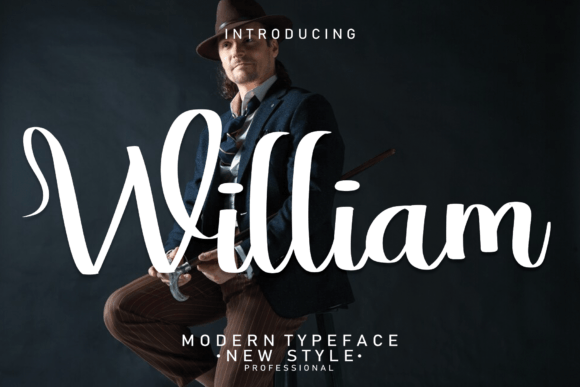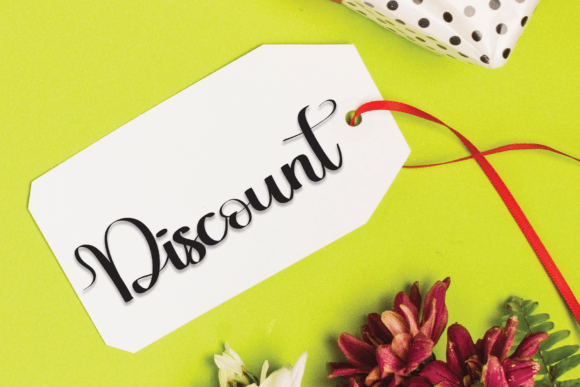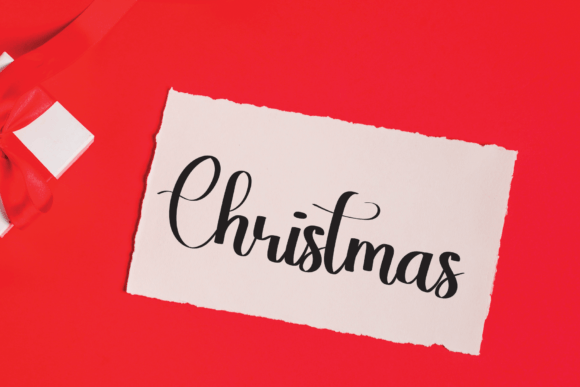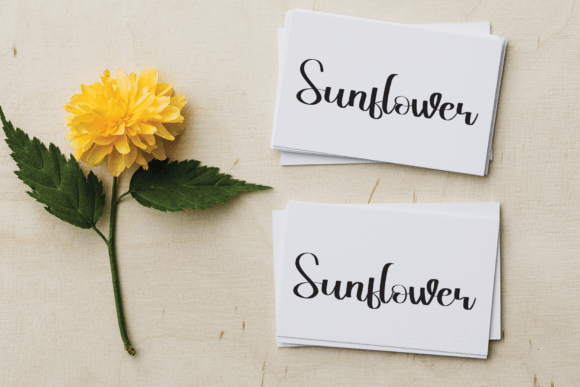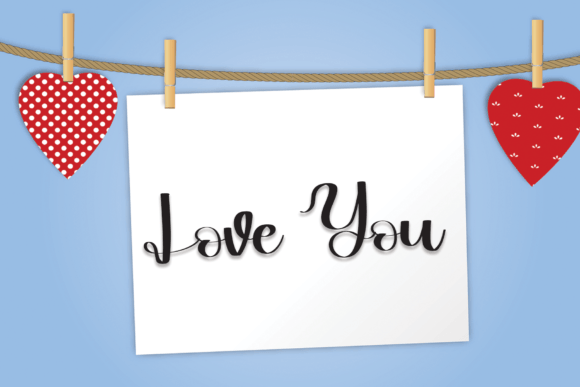
William Font
The William Font Download is a fun and friendly handwritten typeface designed to add personality and warmth to your creative projects. With its casual strokes and inviting feel, this font is perfect for designers, crafters, and content creators who want to bring a touch of authenticity to their work. Whether used for crafts, digital content, or greeting cards, William is a versatile choice that adapts to many styles.
A Handwritten Script with Charm
William is not just another casual typeface—it is a font that feels welcoming and genuine. Its rounded strokes and smooth curves create a relaxed and approachable style. The William Font Download captures the essence of handwriting while keeping the text clear and easy to read, which makes it both stylish and practical.
Perfect for Crafts and DIY Projects
Crafters will enjoy how William elevates handmade designs. From scrapbook pages and embroidery patterns to gift tags and wall art, this typeface makes every project feel more polished while retaining a personal touch. The William Font Download is an excellent tool for DIY enthusiasts who want their creations to look heartfelt yet professional.
Great for Greeting Cards and Invitations
Fonts for greeting cards need to carry emotion and warmth, and William does this effortlessly. Whether you are designing birthday cards, thank you notes, or wedding invitations, this font adds personality to your words. The William Font Download transforms simple greetings into heartfelt expressions that make a lasting impression.
Ideal for Digital Design and Social Media
Digital content creators often search for fonts that make visuals stand out without overwhelming the design. William is ideal for social media posts, blog headers, and digital marketing materials. The William Font Download integrates seamlessly with design tools like Canva, Photoshop, and Illustrator, ensuring flexibility for any digital project.
Useful for Presentations and Educational Materials
Teachers, students, and professionals can use William to create engaging presentations. Its friendly style keeps audiences interested while maintaining readability on slides and printouts. The William Font Download adds a creative touch to presentations without distracting from the message.
Versatile for Personal and Professional Use
One of the greatest strengths of William is its adaptability. It works well for personal crafts and cards, but it also fits branding, small business logos, and promotional designs. The William Font Download bridges casual friendliness with clear communication, making it a reliable typeface for multiple scenarios.
Why Designers Love William
Designers often choose William because it combines creativity with usability. While it has the charm of handwriting, it avoids being overly decorative, which ensures legibility in various sizes. The William Font Download is both stylish and functional, making it a must-have in any designer’s collection.
Add a Personal Touch to Your Designs